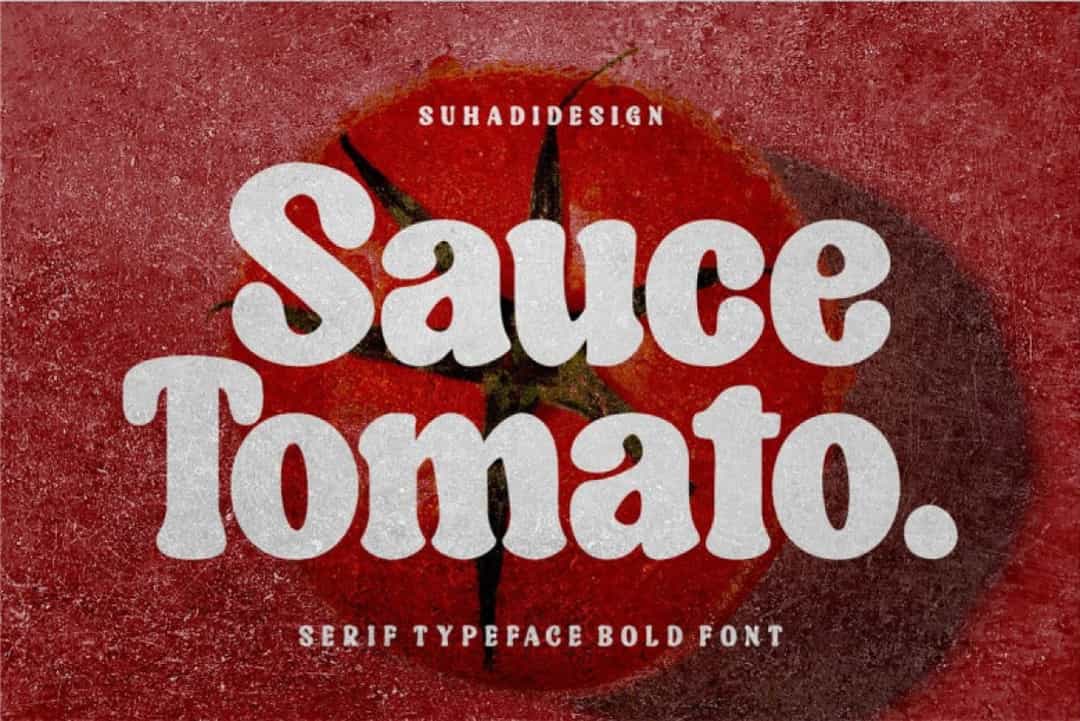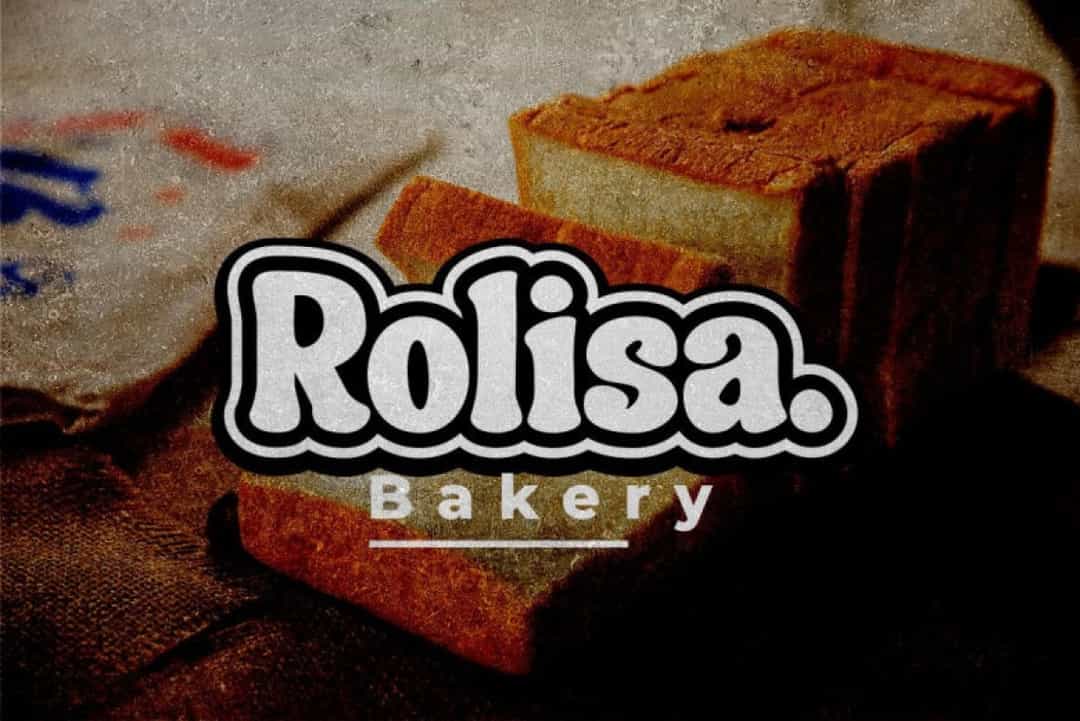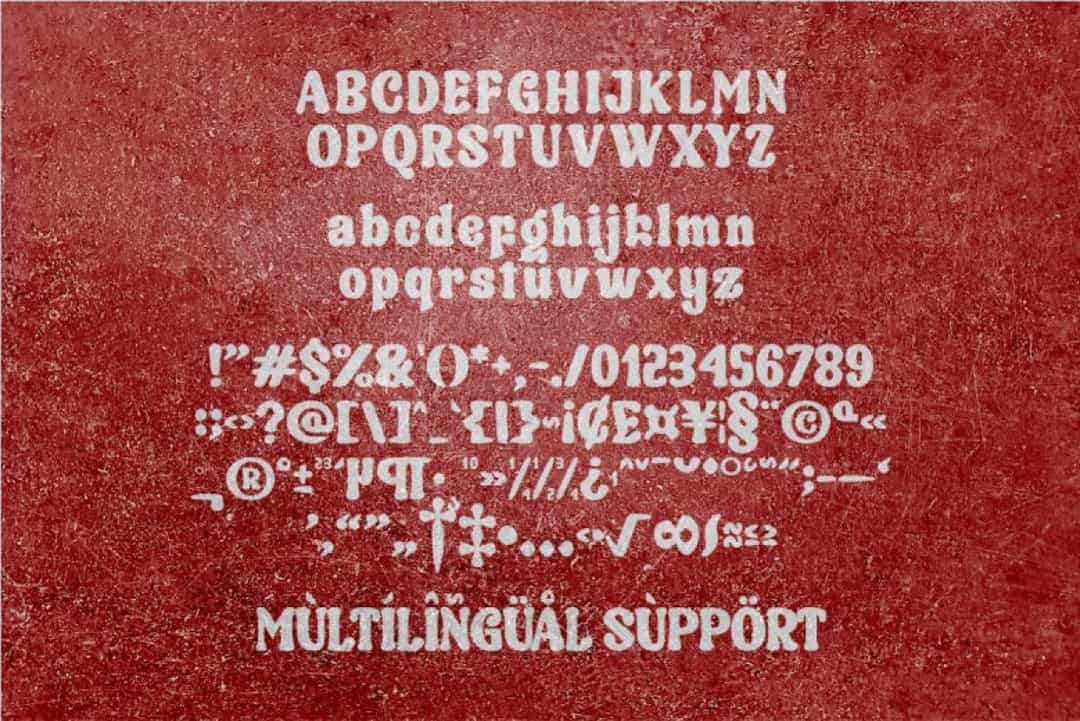
The Sauce Tomato font is an eye-catching Retro serif typeface, perfect for design projects and an overwhelming favorite among users – elegant, stylish, easy-to-read and simple-to-use; making this font one of the top choices on the market.